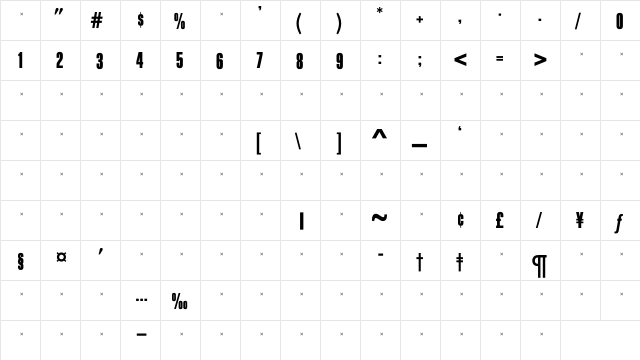
BlockGothicExtraBoldExtraCondTab Regular Font Preview
Design Context for BlockGothicExtraBoldExtraCondTab Typeface
BlockGothicExtraBoldExtraCondTab takes a clean, functional approach — its unadorned letterforms prioritise legibility and work reliably across screen and print environments. Its bold stroke weight gives it real presence on the page. The condensed width makes it efficient for tight spaces without sacrificing legibility.
Well-suited to navigation labels, product packaging, and anywhere legibility at scale is essential.
Font Pairing: Use BlockGothicExtraBoldExtraCondTab for headlines alongside a lighter-weight sans or serif for body copy to establish clear visual hierarchy.
Pro Tip: Use BlockGothicExtraBoldExtraCondTab tightly set in headlines and banners — its condensed proportions make it ideal for maximum impact in minimum horizontal space.